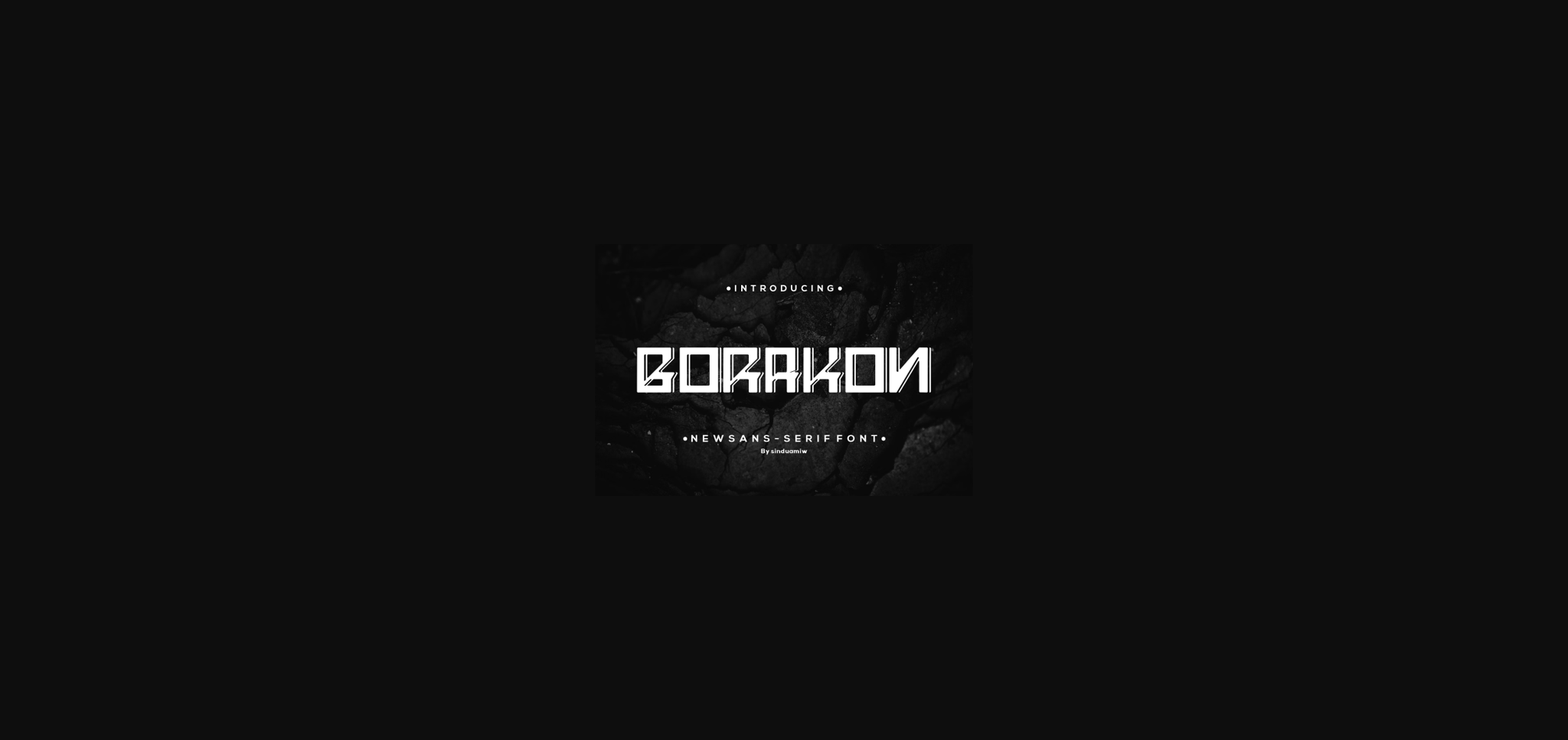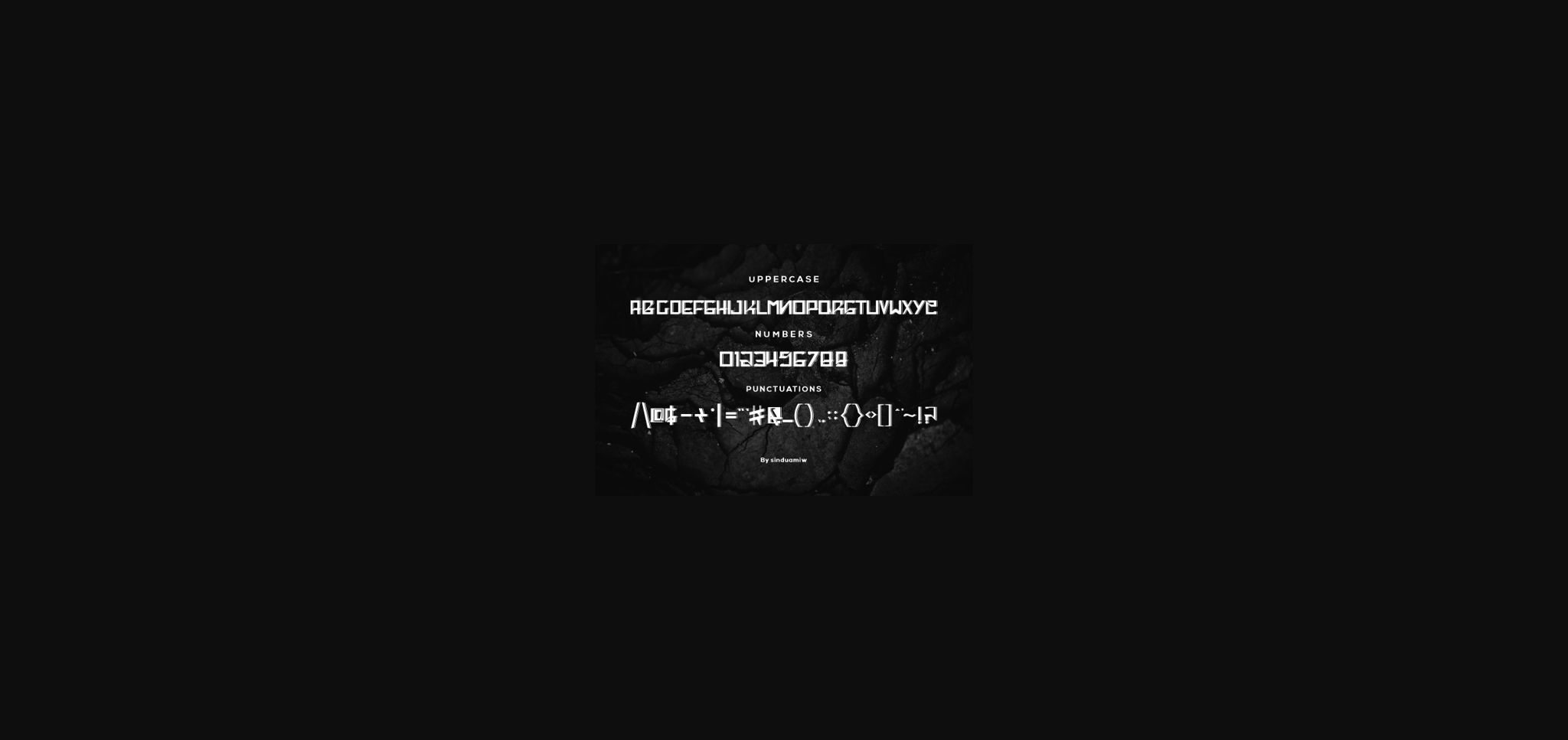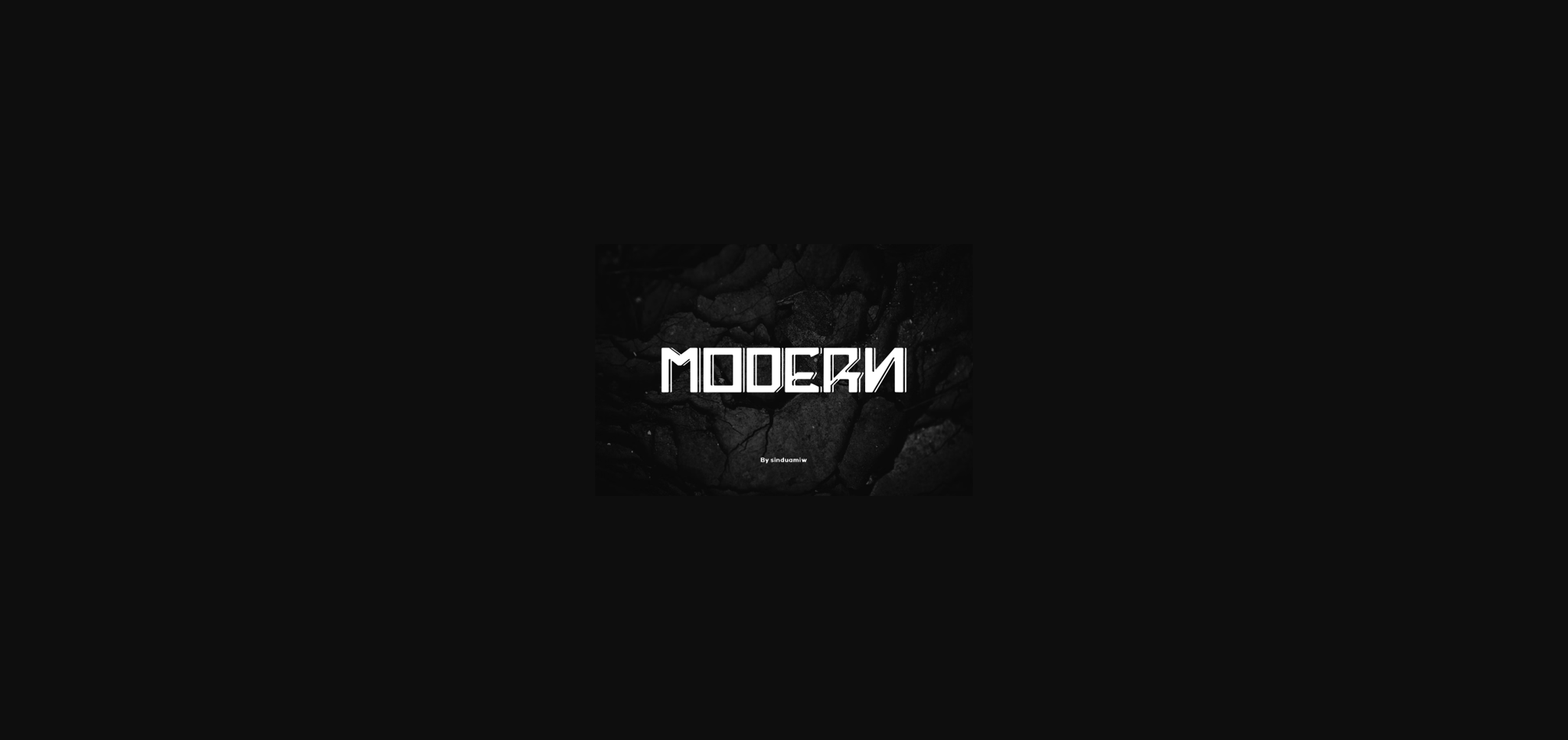
Borakon Font
About Borakon Font
Borakon is a cool, powerful, and modern sans serif font suitable for loud designs, posters, quotes, or anything that needs unique typography.